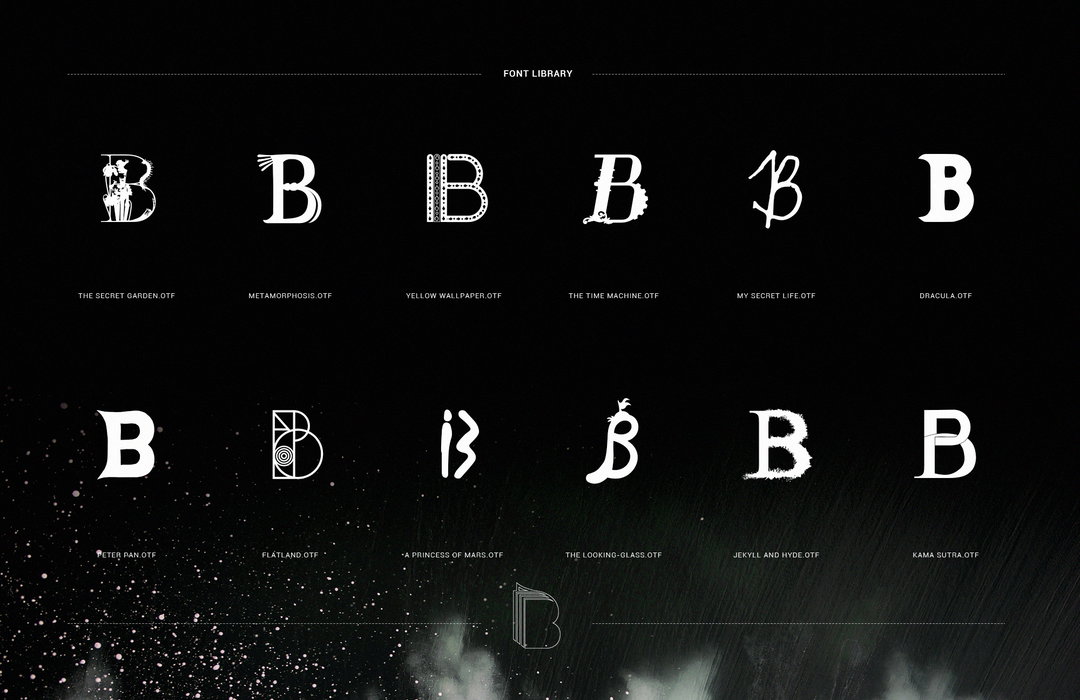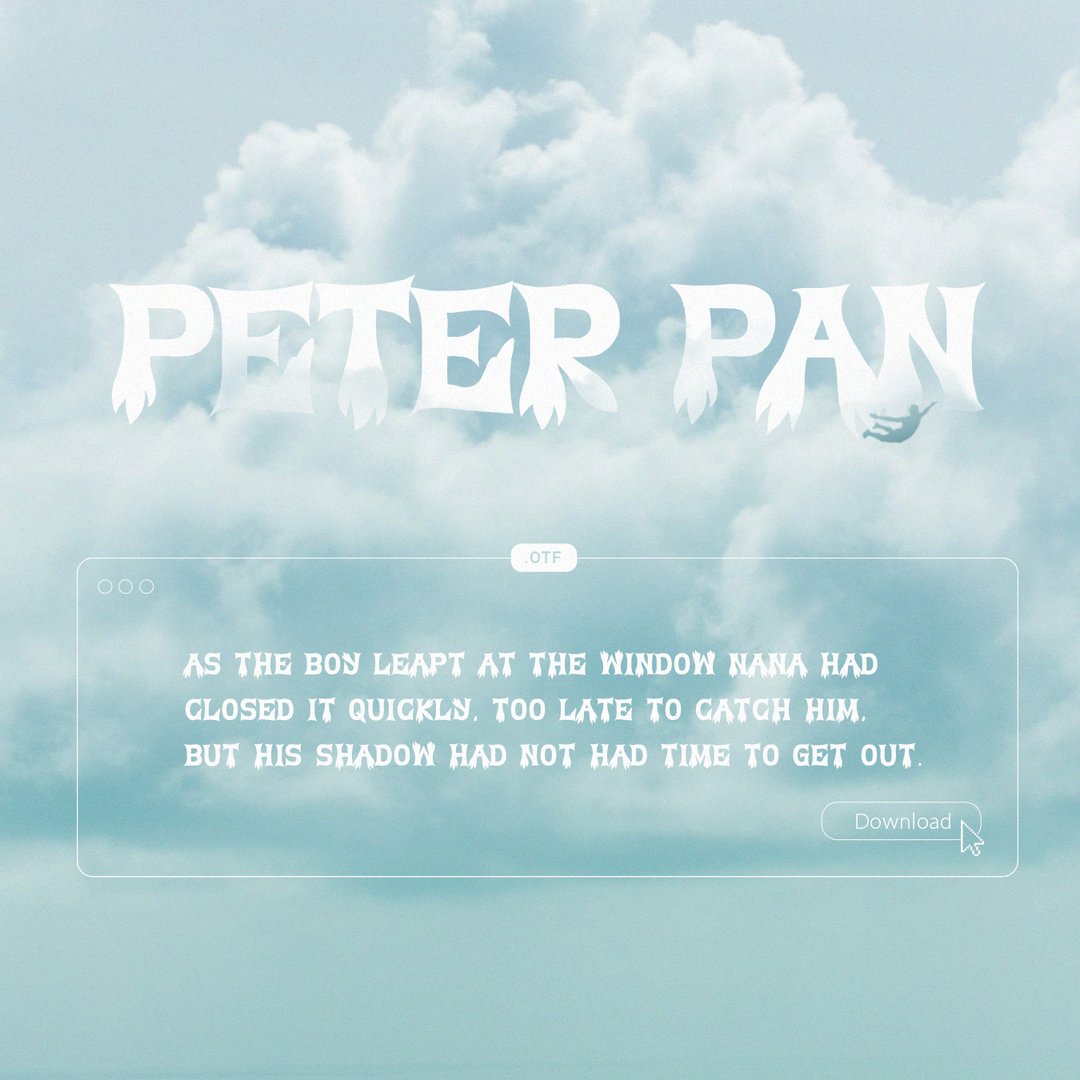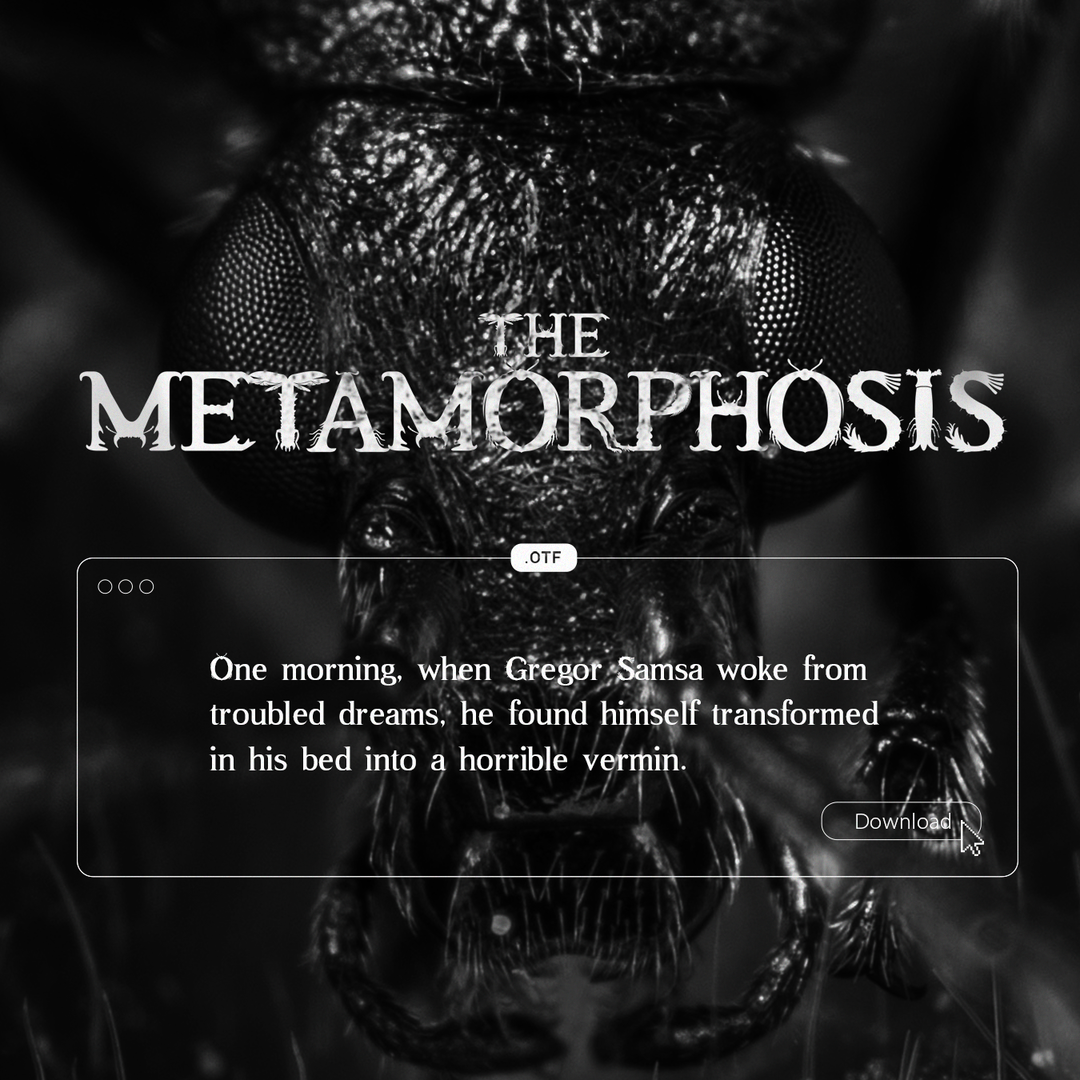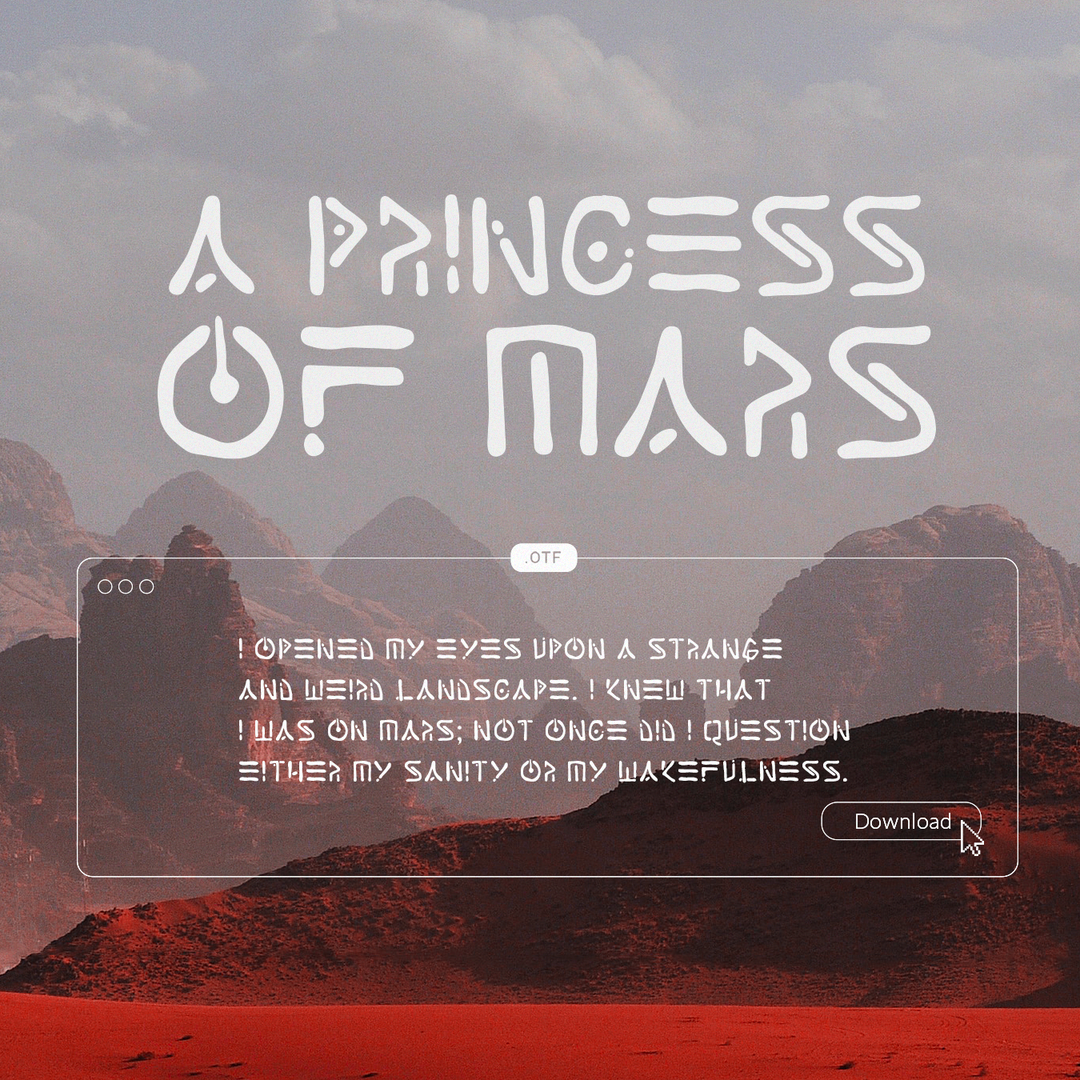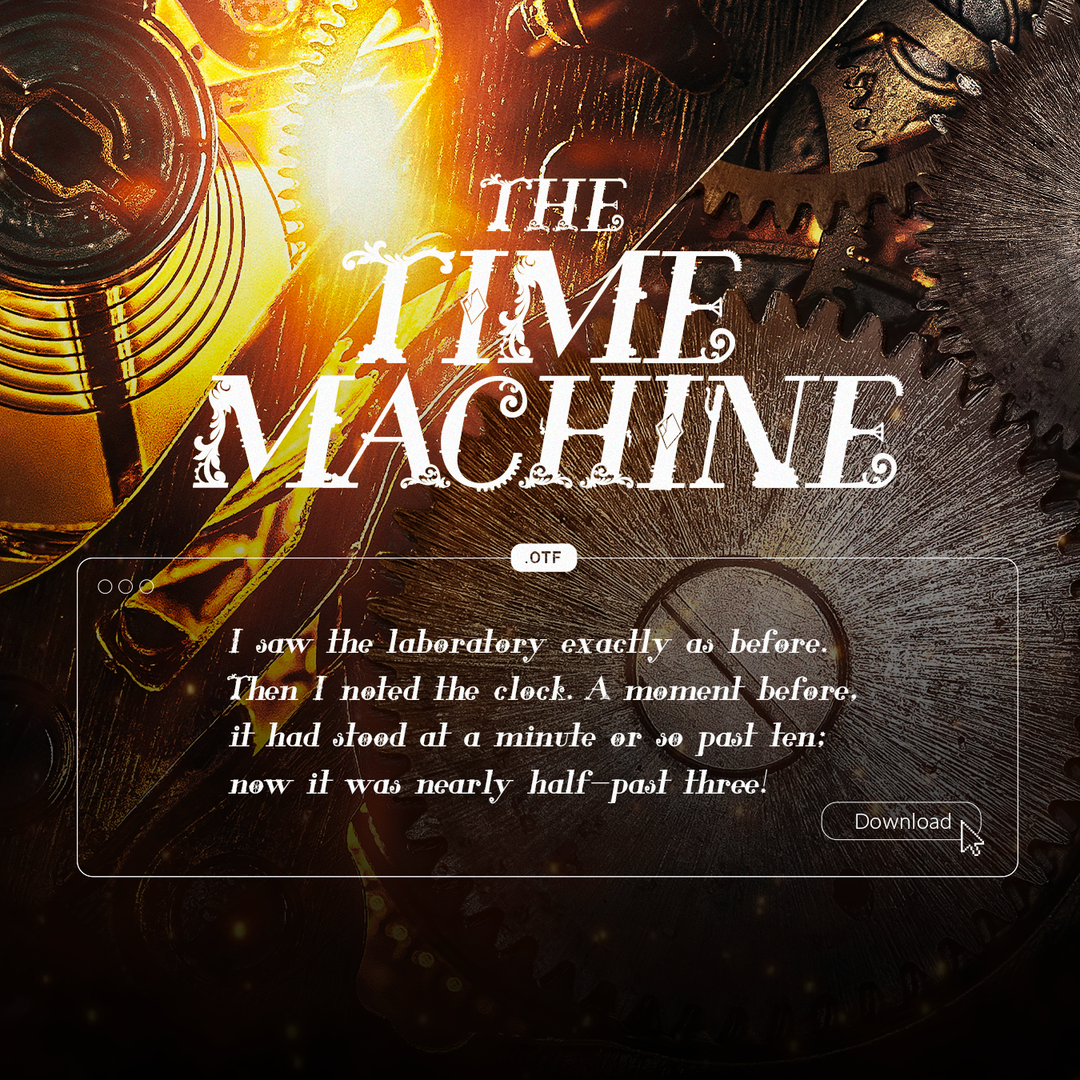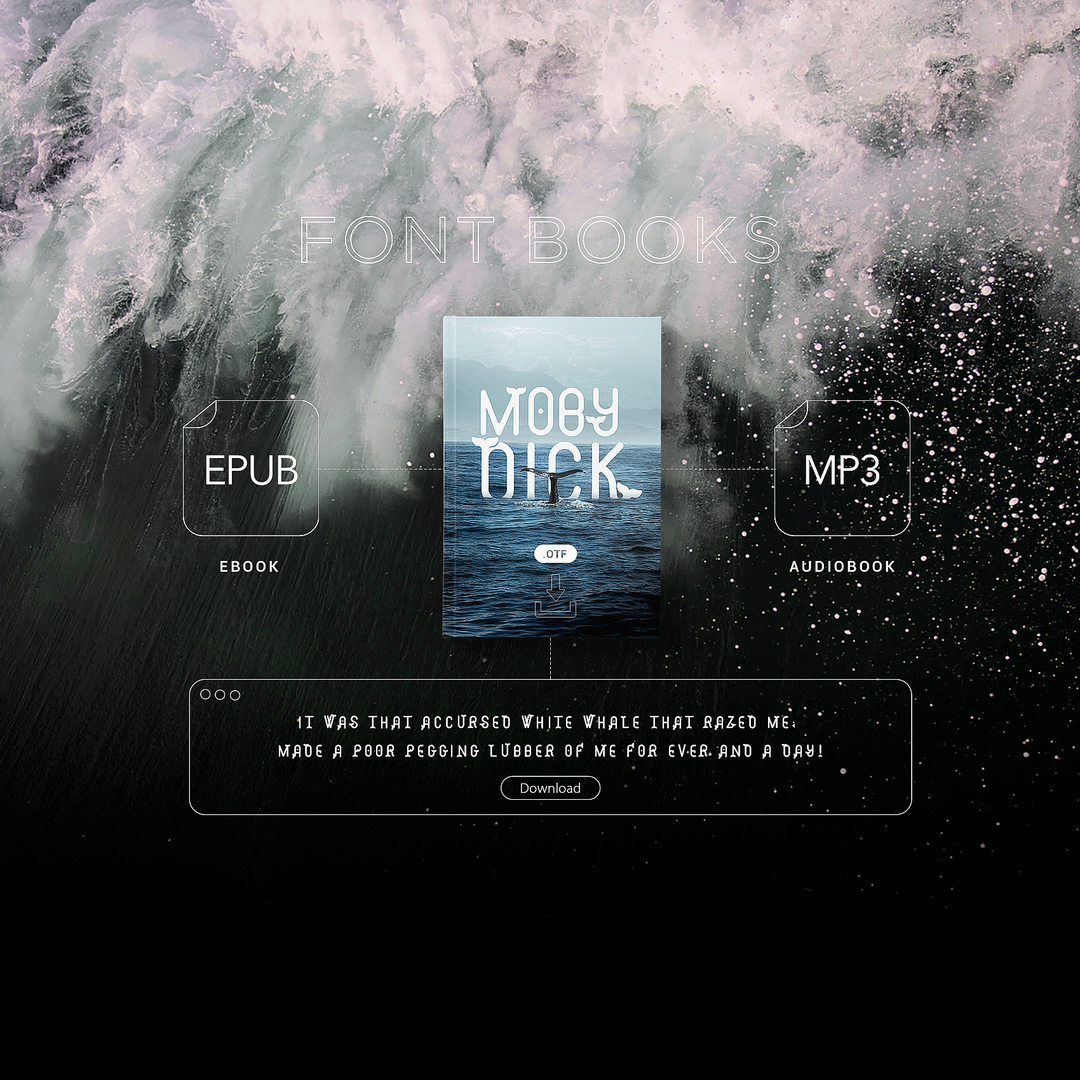
What would Kama Sutra or Jekyll and Hyde look like as a font?
BBDO Guerrero hopes to have the answer in Font Books, a collection of original, free typefaces based on classic novels.
Starting out with the question “can design inspire people to read the classics,” agency BBDO Guerrero worked with The Reading Association of the Philippines to develop Font Books – a set of typefaces based on iconic novels, with the book hidden within the file. The open-source set includes eight so far: display and text fonts inspired by Moby-Dick, The Metamorphosis, The Time Machine, Kama Sutra, The Strange Case of Dr. Jekyll and Mr. Hyde, The Secret Garden, A Princess of Mars, and Peter Pan.
Each is designed to “give a better appreciation and understanding of the stories,” the agency says, and when you download it, you get a copy of the novel in ebook and audiobook format.
“Every typeface character was crafted to give a better picture of the story,” creative director Michelle Edu explains. “For instance, Moby-Dick is all about Captain Ahab’s quest to get revenge on the white whale, so the animal’s eyes and tail feature prominently in the font. The many thin legs and stiff, segmented body parts of Kafka’s protagonist inspired the letters of the Metamorphosis typeface. The sci-fi tale of Flatland tells the story of a Square visiting worlds of varying dimensions, so the points, lines, and angles he comes to know plays into each font character.”
Instead of the generic font preview that is usually implemented to demonstrate the characters, lorem ipsum or “The quick brown fox jumps over the lazy dog,” each font instead uses excerpts from the novels, such as “It was that accursed white whale that razed me; made a poor pegging lubber of me for ever and a day!” (Moby Dick).
As it grows, it’s hoped the project will encourage more people in the Philippines – the third largest English-speaking country – to pick up a classic.